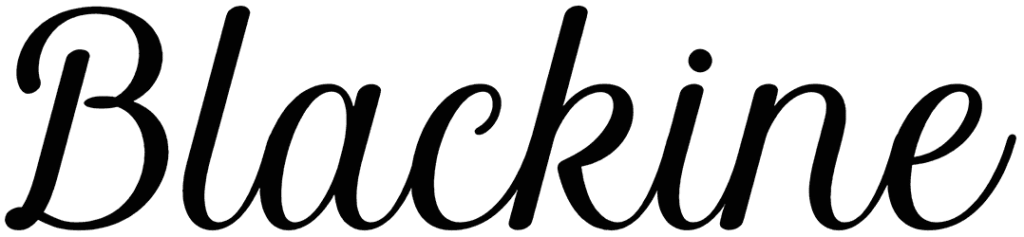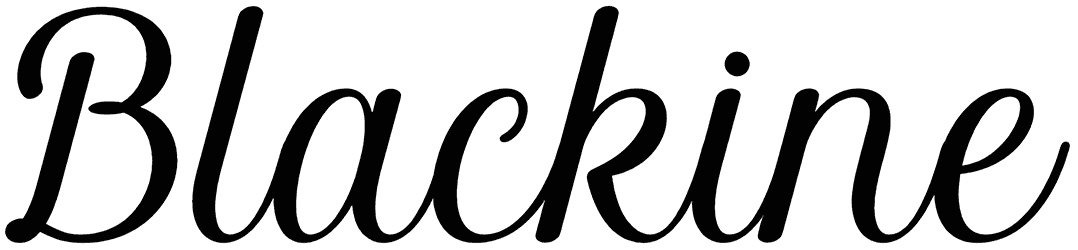
Blackine Font
The whole point of using a classic and humble visual is to give a timeless and popular form to your design and this script font has the potential to do it. Characters are matchable with different topics of formal or informal projects like a business card for a manager. Set the Blackine font for your intended layout and impress a lot of viewers.